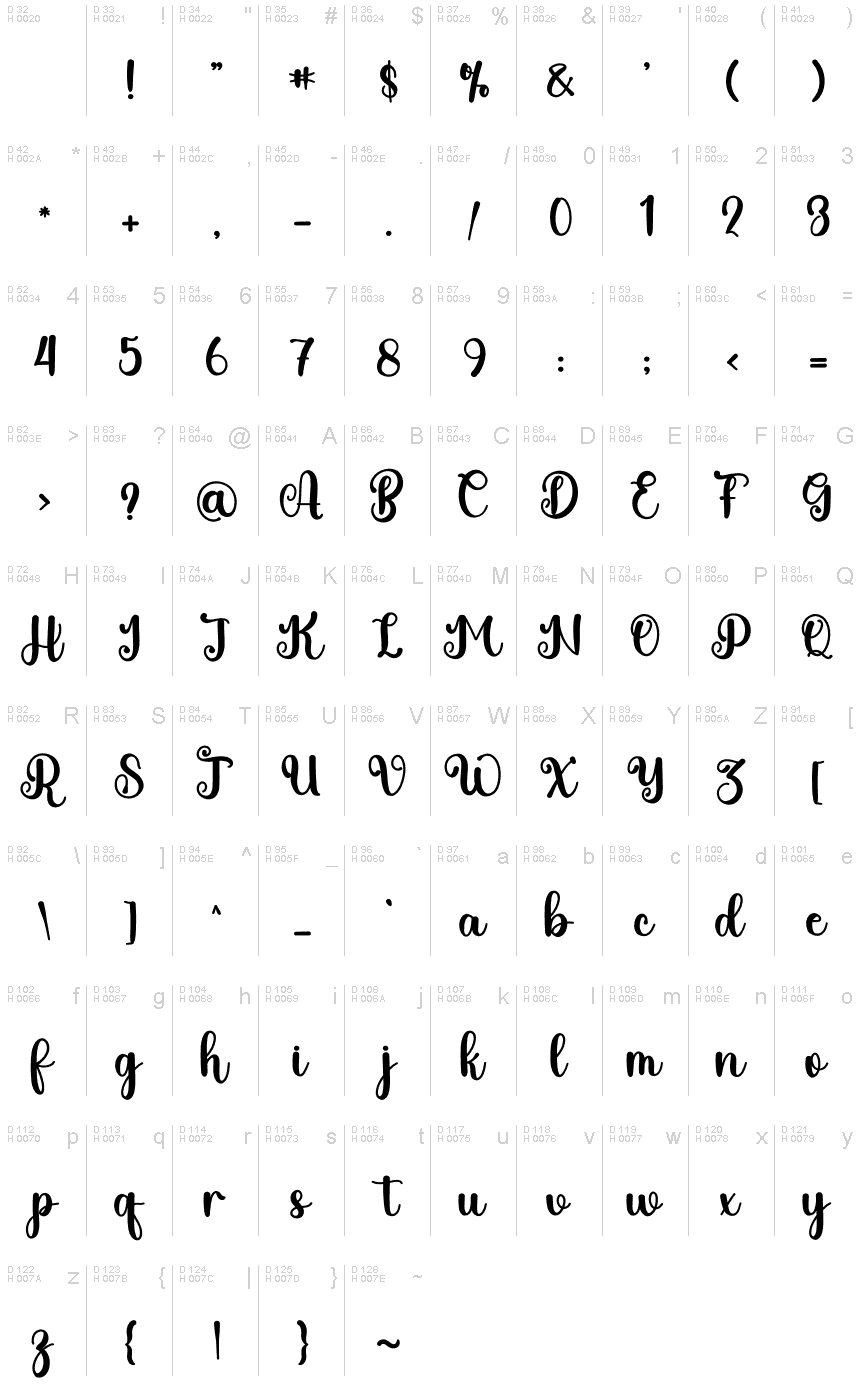
Binding
Binding is a lovely handwritten font designed by Inermedia Studio. It's the perfect choice to add a touch of personality to your projects, such as invitations, greeting cards, logos, posters and more.